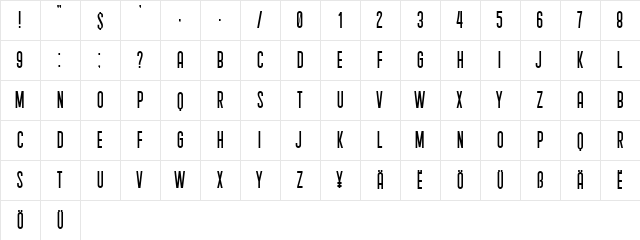
Shakeout Regular
Design Context for Shakeout Typeface
Shakeout is a composed and adaptable typeface that performs quietly and consistently across a wide range of design contexts.